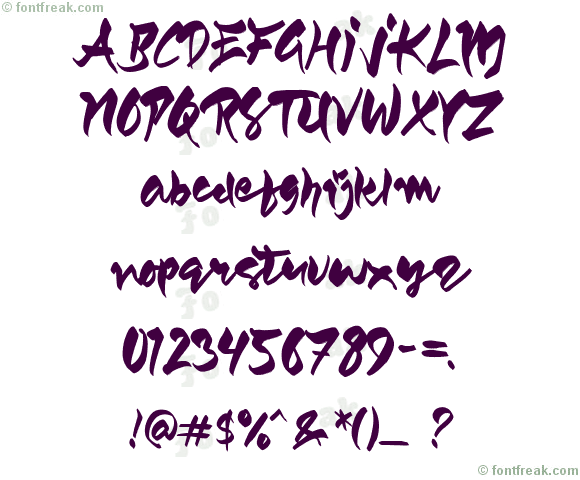
Santoriu
Santoriu, designed by Burhan Afif in 2020, is an elegant script font that combines fluidity with a touch of modern charm. This font stands out with its distinct handwritten style, characterized by smooth, sweeping strokes and a dynamic, organic flow. The stroke weight varies subtly, creating a captivating contrast that adds depth and personality to its characters. The spacing is well-balanced, ensuring legibility while maintaining a graceful appearance.
Santoriu is particularly well-suited for various creative applications. It makes an excellent choice for wedding invitations, where its romantic flair can enhance the overall aesthetic. Additionally, this font is perfect for branding projects, such as logos for boutique shops or artisanal cafes, where a personal touch is essential. Its unique style also lends itself well to movie posters, capturing a sense of drama and intrigue. Furthermore, restaurant menus can benefit from the font's inviting appearance, appealing to customers looking for an enjoyable dining experience.
Targeted towards graphic designers, small business owners, and content creators, Santoriu provides a versatile tool for anyone seeking to incorporate a stylish, handwritten feel into their projects. The font’s freeware license allows users to explore its potential without financial constraints, making it accessible for a wide audience.
What sets Santoriu apart is its ability to blend classic elegance with contemporary design elements, making it a standout choice for creatives. Its distinctive features and fluidity not only enhance visual appeal but also evoke emotion, allowing it to resonate with diverse audiences. For anyone interested in elevating their design projects, the Santoriu font free download is a must-try.